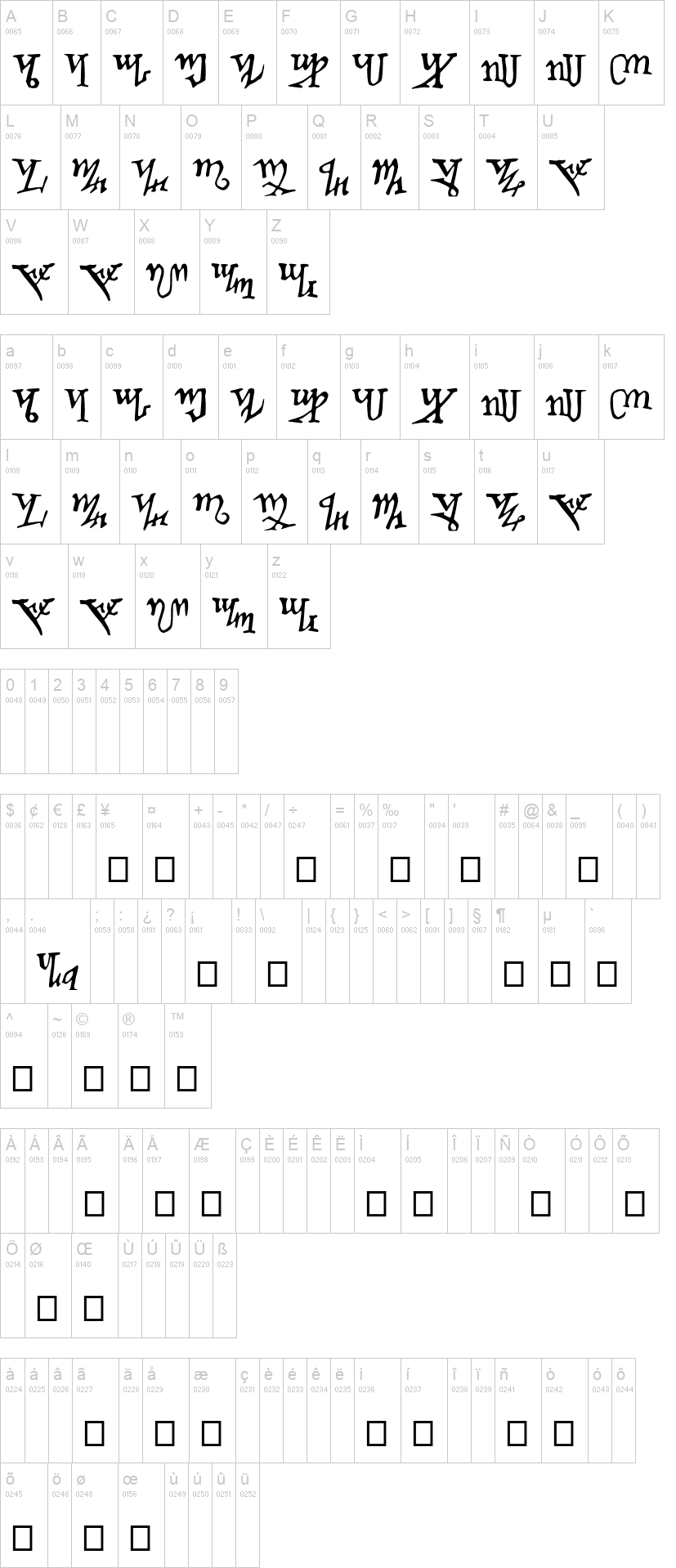
Note of the authorThis script is known as the Theban alphabet, Honorian alphabet, or the witches' alphabet. (https://en.wikipedia.org/wiki/Theban_alphabet) The characters in this font are taken and touched up from an image in the public domain. (https://en.wikipedia.org/wiki/File:Theban.jpg)
The Theban alphabet does not distinguish between I/J, U/V/W, and upper/lowercase and thus this font contains only A-Z and the symbol for full stop/period.